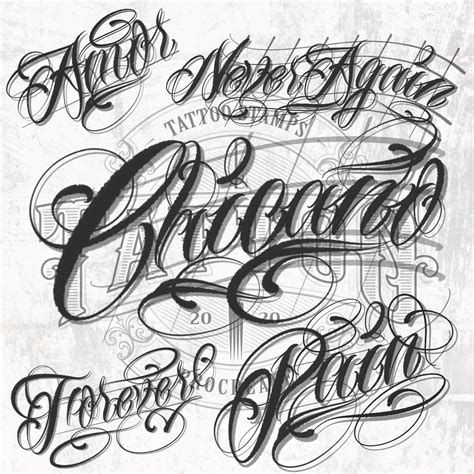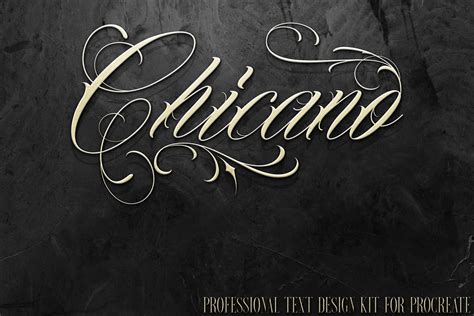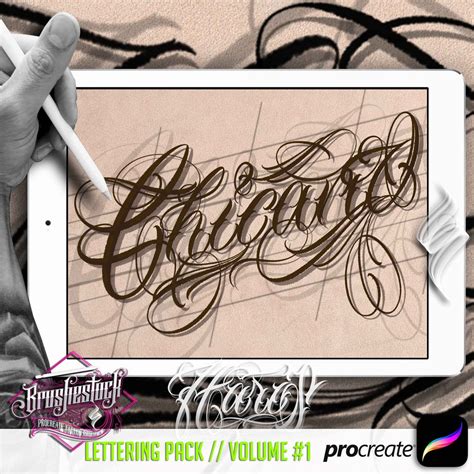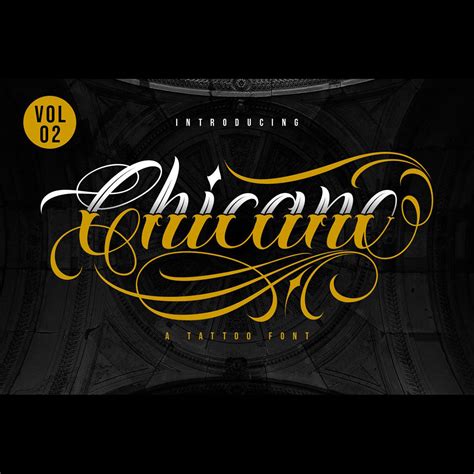
Typography plays a crucial role in design, and choosing the right font can significantly enhance the visual appeal and readability of any project. One font that has gained attention for its unique style and cultural significance is the Chicano Script Font. This font is deeply rooted in the Chicano culture, a vibrant and rich heritage that blends Mexican and American influences. The Chicano Script Font is not just a typographic choice; it is a symbol of identity and pride for many in the Chicano community.
Understanding the Chicano Script Font
The Chicano Script Font is characterized by its fluid, handwritten style that mimics traditional Chicano calligraphy. This font often features intricate details and a playful, dynamic flow, making it ideal for projects that aim to evoke a sense of cultural authenticity and artistic flair. The font's design elements often include bold strokes and elegant curves, which give it a distinctive and recognizable appearance.
Historical and Cultural Significance
The Chicano Script Font has its roots in the Chicano Movement of the 1960s and 1970s, a period of social and political activism aimed at promoting Chicano rights and cultural awareness. During this time, art and design became powerful tools for expressing identity and resistance. The Chicano Script Font emerged as a visual representation of this movement, often used in posters, murals, and other forms of street art. Its use continues to be a way to honor and celebrate Chicano heritage.
Applications of the Chicano Script Font
The versatility of the Chicano Script Font makes it suitable for a wide range of applications. Here are some common uses:
- Graphic Design: The font is often used in graphic design projects to add a cultural and artistic touch. It can be seen in logos, posters, and other promotional materials.
- Branding: Businesses looking to incorporate a unique and culturally rich element into their branding may choose the Chicano Script Font. It can help create a strong and memorable brand identity.
- Art and Illustration: Artists and illustrators often use this font in their work to convey a sense of cultural heritage and artistic expression.
- Event Invitations: For events with a cultural theme, the Chicano Script Font can add a festive and authentic touch to invitations and promotional materials.
Designing with the Chicano Script Font
When using the Chicano Script Font in your designs, there are several factors to consider to ensure it is used effectively:
- Readability: While the font is visually appealing, it is important to ensure that it remains readable. Use it sparingly and in larger sizes to maintain clarity.
- Contrast: Pair the Chicano Script Font with simpler, more readable fonts for body text. This contrast can enhance the overall design and make it easier to read.
- Color Scheme: Choose a color scheme that complements the font's style. Bold and vibrant colors often work well with the Chicano Script Font, but softer tones can also create a unique and elegant look.
Here is a table that summarizes the key considerations for using the Chicano Script Font:
| Consideration | Recommendation |
|---|---|
| Readability | Use larger sizes and sparingly |
| Contrast | Pair with simpler fonts for body text |
| Color Scheme | Choose bold or soft tones that complement the font |
📝 Note: Always test the font in your design to ensure it meets your readability and aesthetic goals.
Inspiration from Chicano Art
The Chicano Script Font draws inspiration from the rich tradition of Chicano art, which often features vibrant colors, bold lines, and intricate patterns. This art form has been a powerful medium for expressing cultural identity and social commentary. The font's design elements, such as its fluid strokes and dynamic flow, reflect the artistic techniques used in Chicano murals and street art.
One notable example of Chicano art is the work of Chicano muralists, who have created iconic murals in cities across the United States. These murals often depict scenes from Chicano history and culture, using bold colors and intricate designs. The Chicano Script Font can be seen in many of these murals, adding a layer of cultural authenticity and artistic expression.
Chicano Script Font in Modern Design
In modern design, the Chicano Script Font continues to be a popular choice for projects that aim to incorporate cultural elements. Its unique style and historical significance make it a valuable tool for designers looking to create authentic and meaningful designs. Whether used in graphic design, branding, or art, the Chicano Script Font adds a touch of cultural richness and artistic flair.
One of the key advantages of using the Chicano Script Font is its ability to evoke a sense of cultural identity and pride. For designers working on projects related to Chicano culture, this font can be a powerful tool for conveying authenticity and respect for the community. It can also be used in broader contexts to add a unique and culturally rich element to any design project.